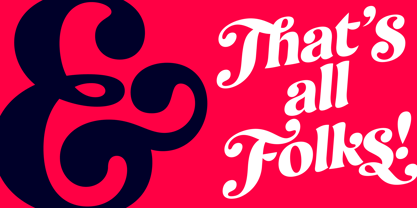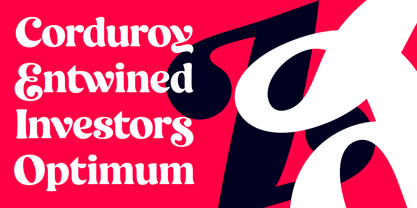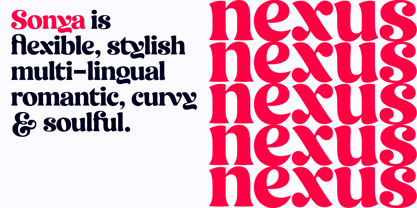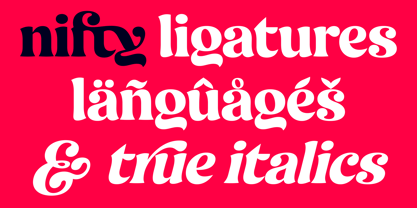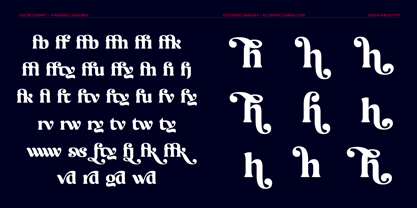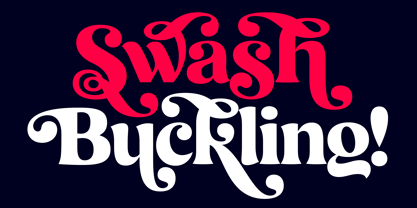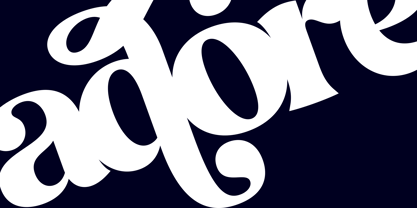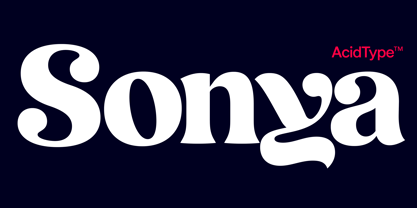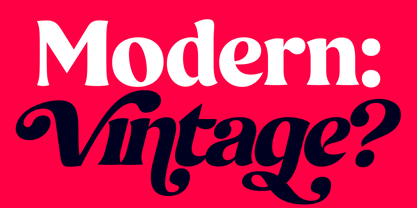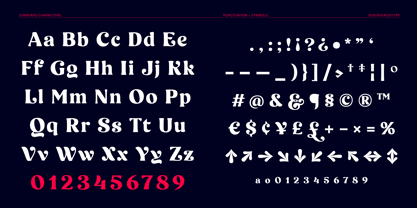
Sonya
The Sonya Font Family was designed by Zac Hallgarten and published by AcidType. Sonya contains 2 styles and family package options. More about this family
Sonya is a premium display typeface that offers extensive language support, ligatures, swashes, and alternate characters. Sonya seamlessly blends modern clarity with a nostalgic vintage flavour, making it ideal for both display applications and brand-focused text settings. This typeface excels in branding and logotypes, providing maximum character while maintaining legibility and versatility. Designed for contemporary print workflows, Sonya performs exceptionally well in editorial, packaging, and identity applications, and is also optimized for screen viewing. Its striking and expressive design ensures it stands out, yet it remains disciplined enough for reliable, everyday typographic work. Please note: all swash glyphs are stored as Stylistic Alternates, for maximum compatibility.